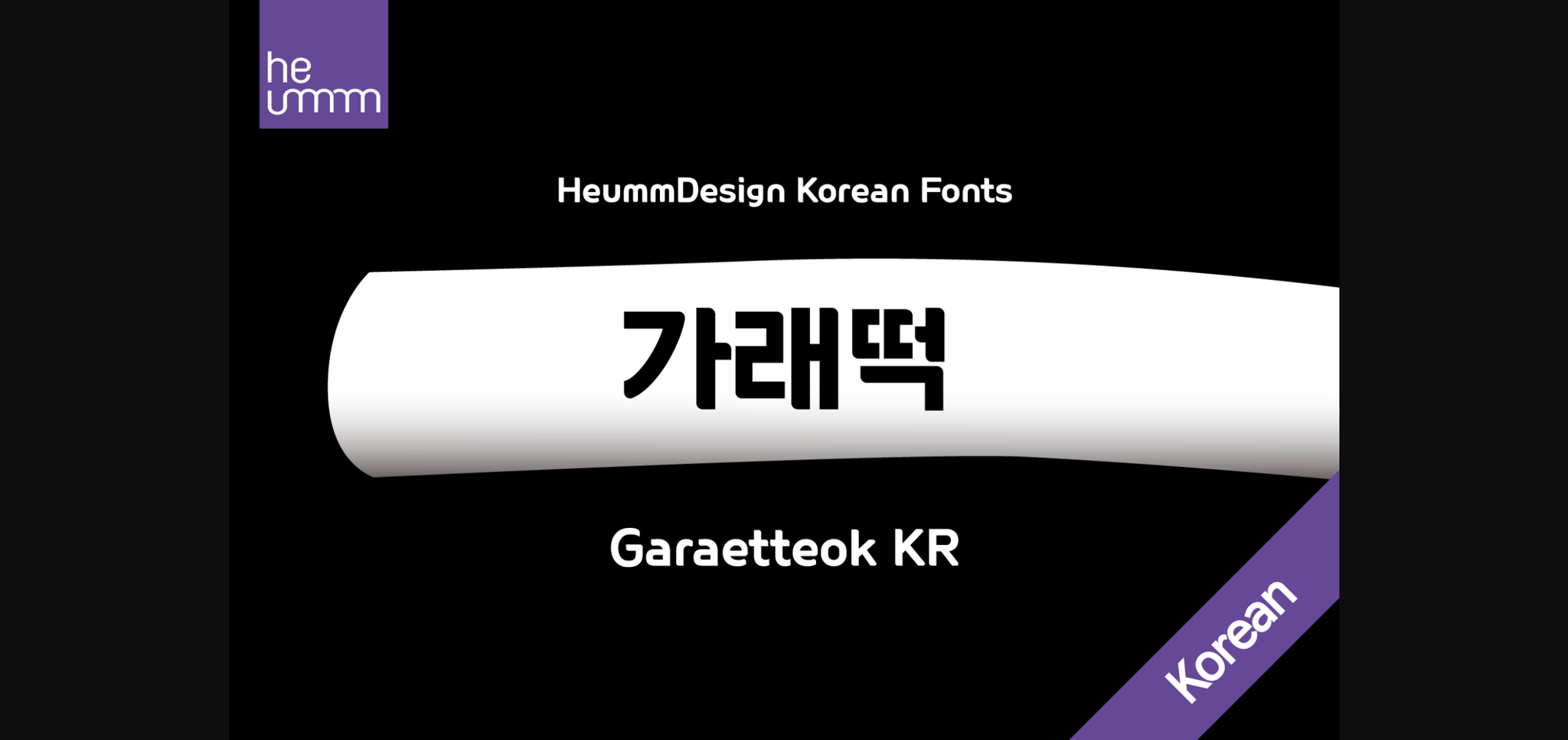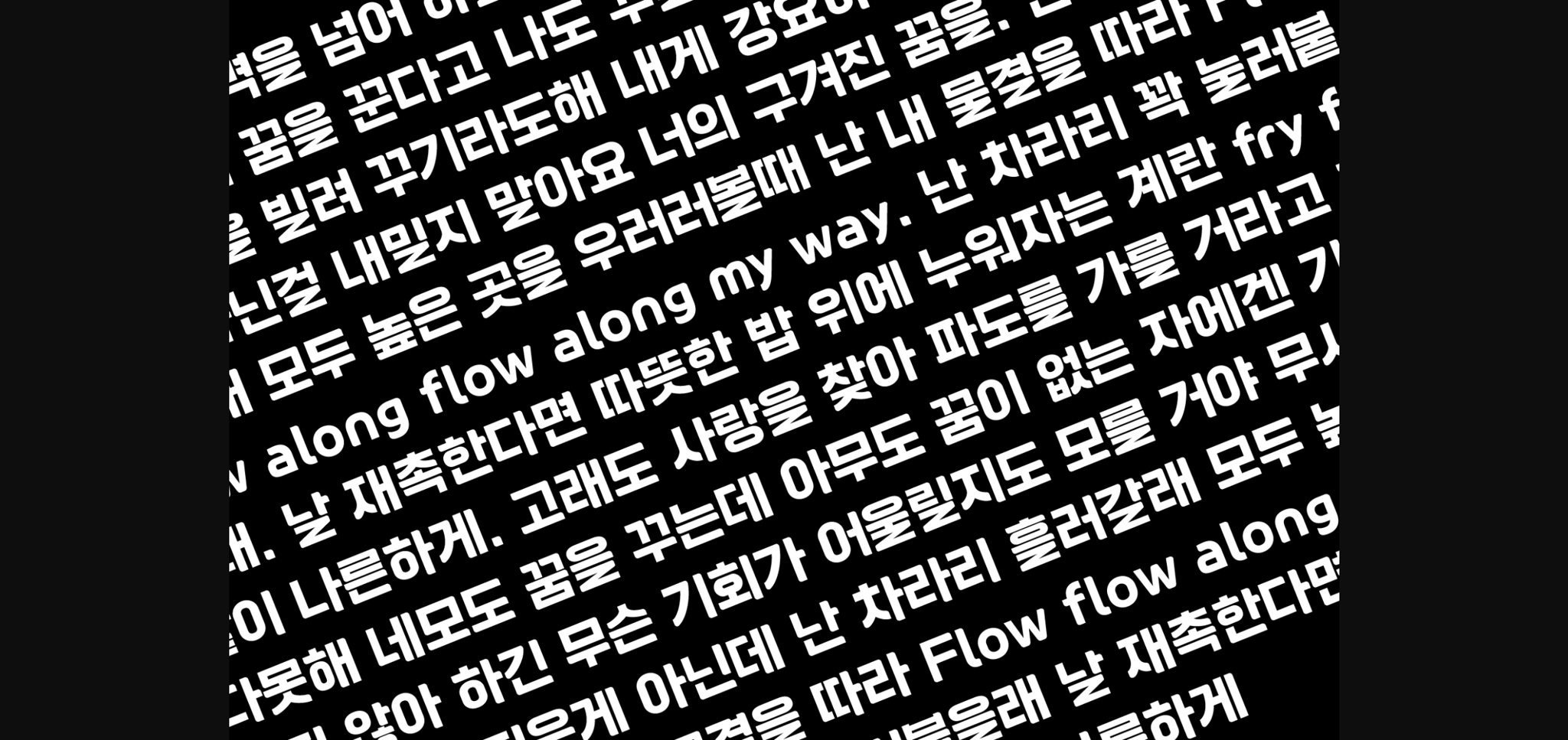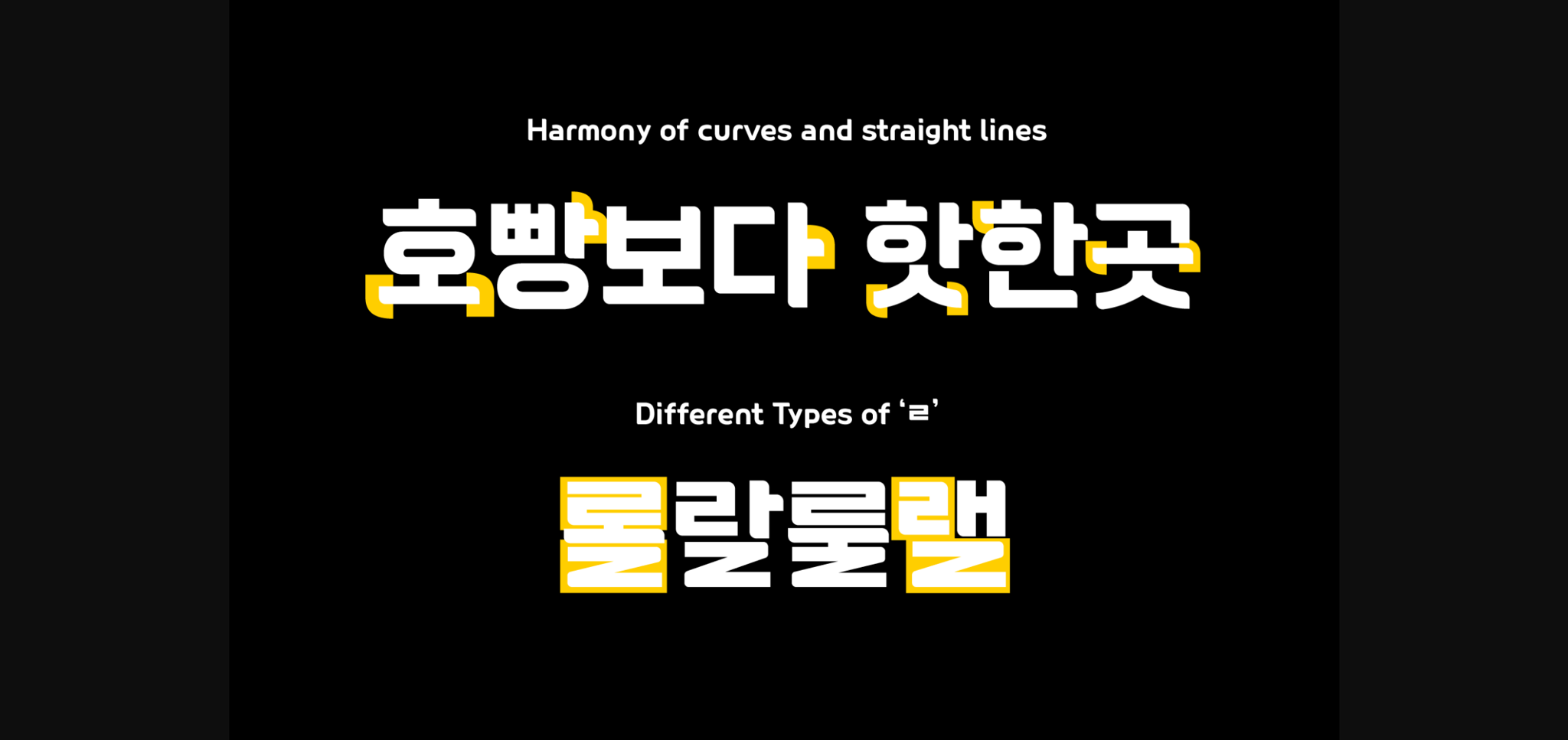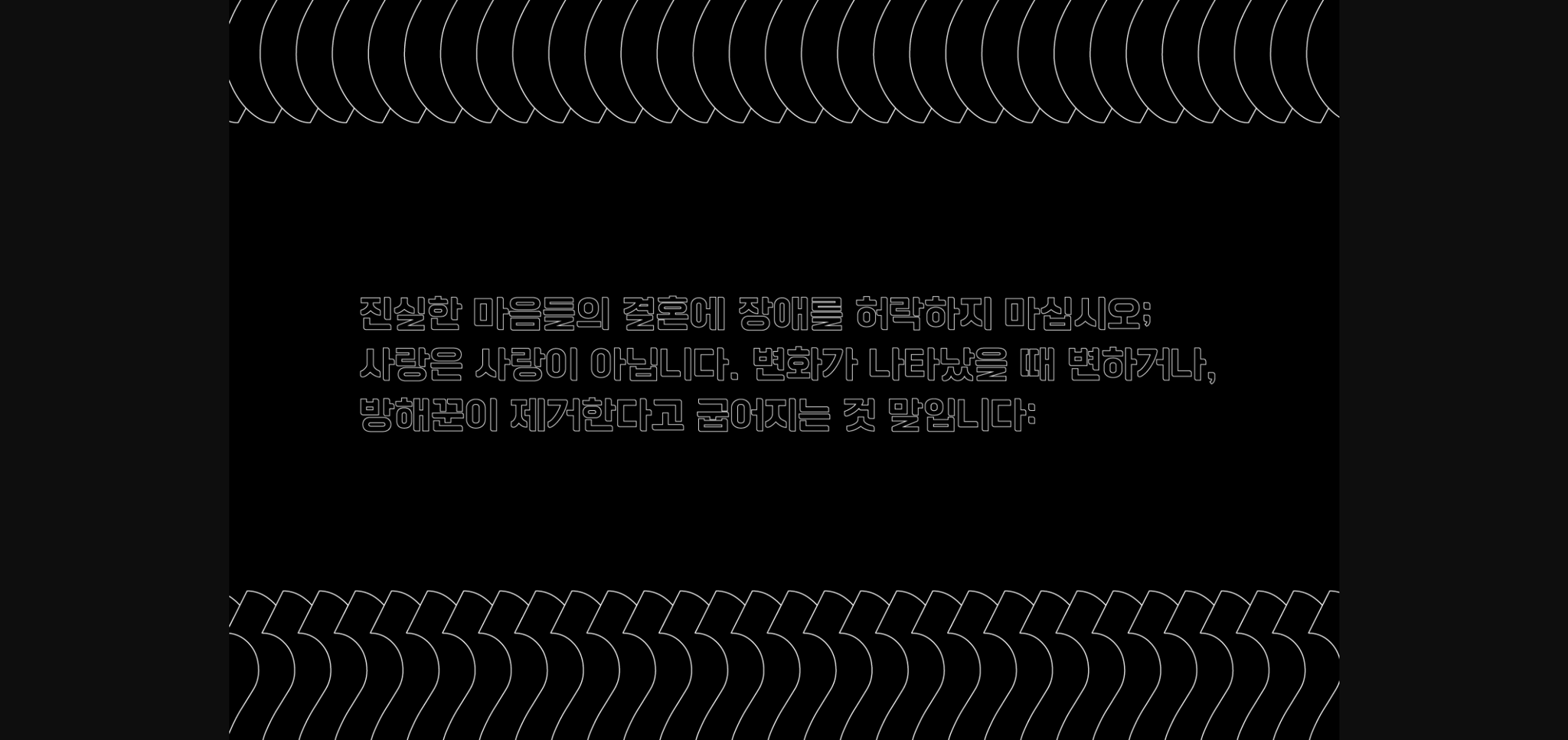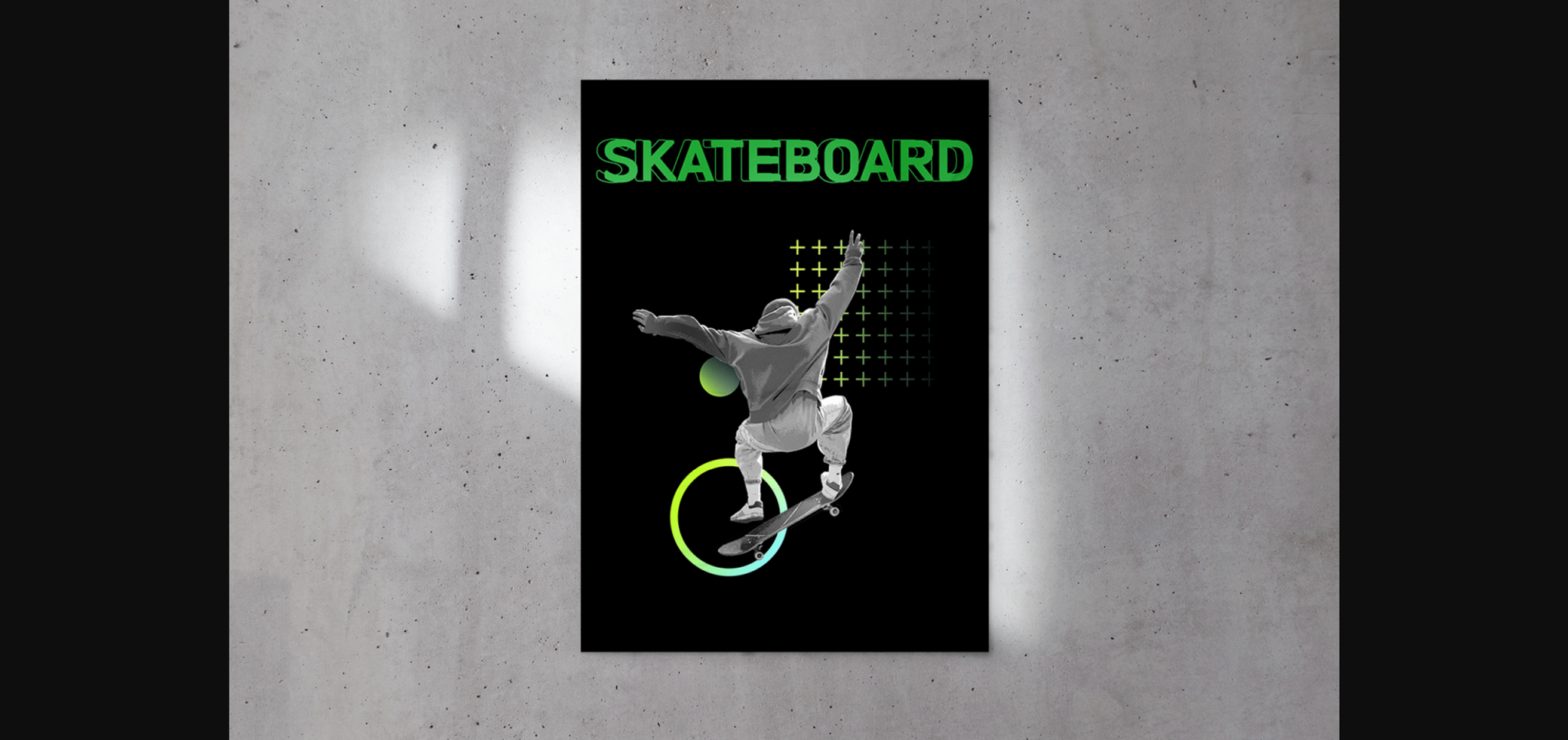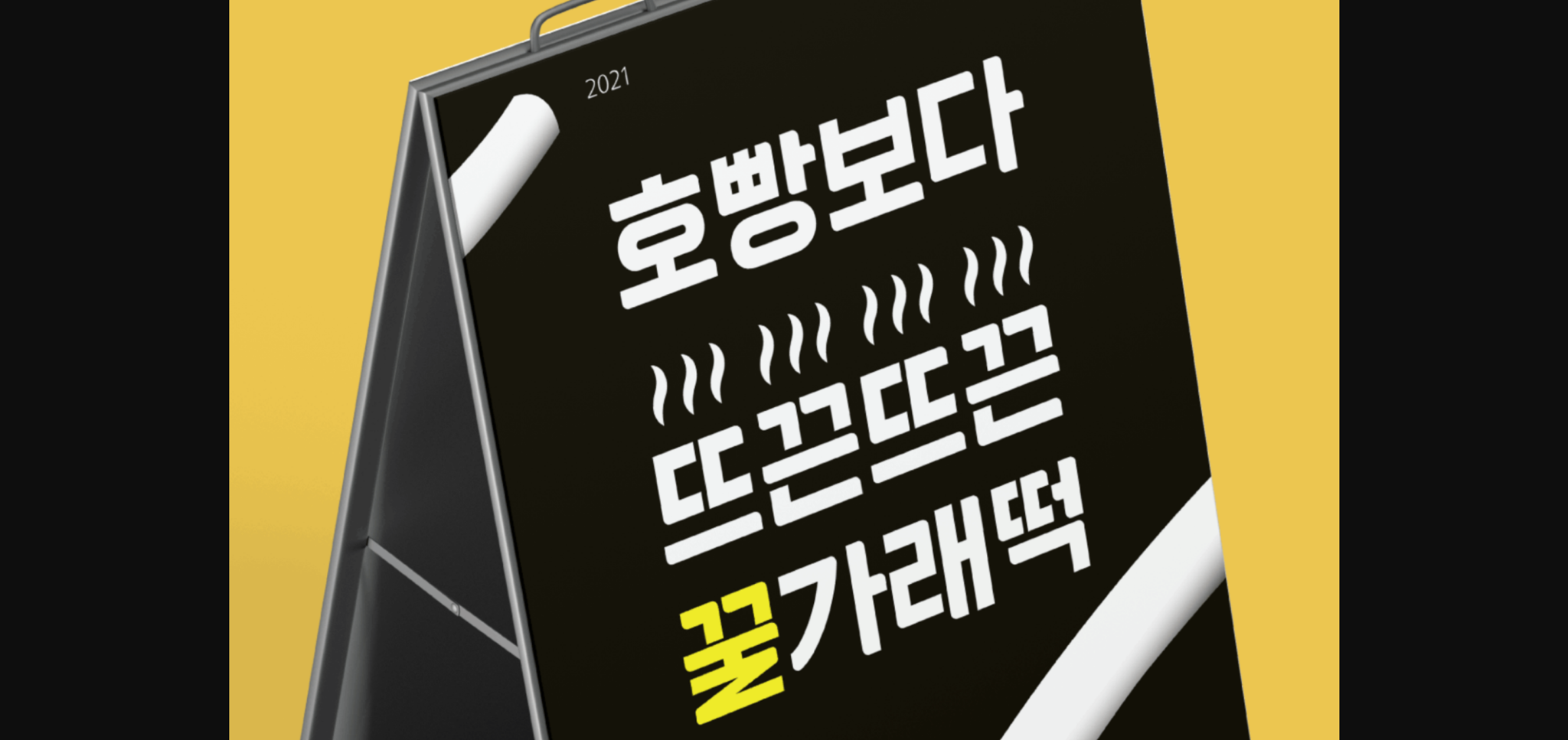
About Garaetteok Kr Font
It is a cute headline font with straight strokes and rounded ends, giving it a rice cake feel. The initial and final consonants โในโ were designed differently to give a fun sense of rhythm, and the straight strokes and lively curves added personality to the writing. It contains Hangul, Korean.